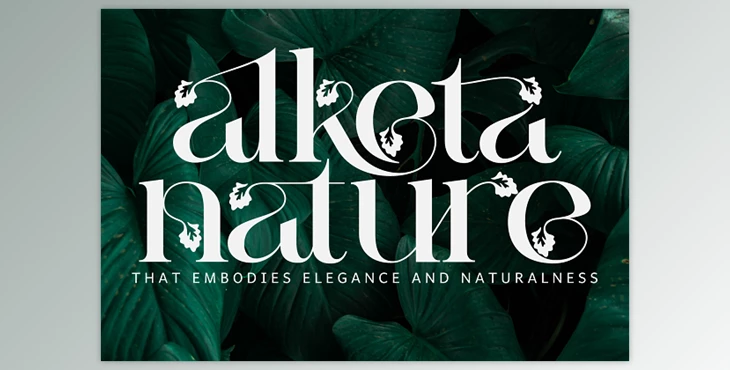
Alketa Nature Font: Alketa Nature font is a delicate floral font featuring leaves and flowers with a natural theme of leaves and swashes. It's a beautiful, feminine font suitable for all headlines and other decorative items. It is distinctive in its design and can add a warm look to your following projects. Be inspired by its unique style and create stunning poster packaging for your product, logos, packaging, and other designs!
Alketa was designed with OpenType features, and it includes 100 ligatures, alternate punctuation marks, and numbers and is also compatible with different languages.
Some great features of Alketa Nature Font:
- Lowercase letters and Uppercase Lowercase letters
- Special Ligatures
- Numerals & Punctuation
- Accented characters